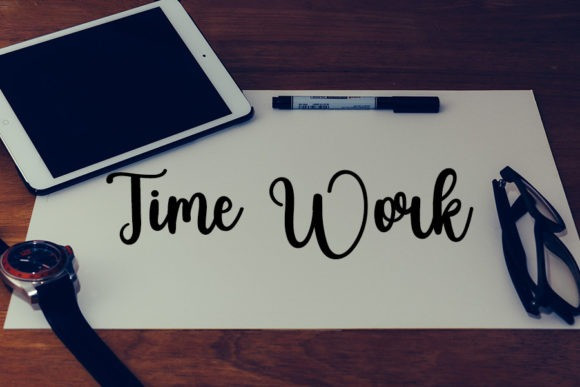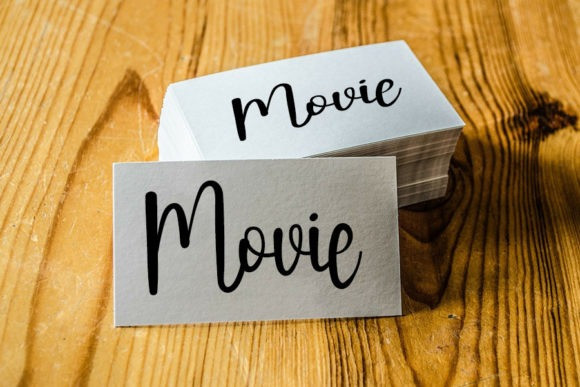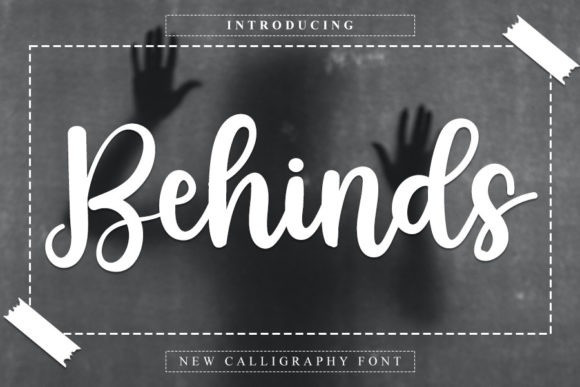
Behinds Font
Behinds Script Font is a stylish handwritten font with a contemporary atmosphere and impeccable form, inspired by a timeless classic calligraphy. Not too thin and not too thick, balanced and varied, this font was designed to enhance the beauty of your projects.